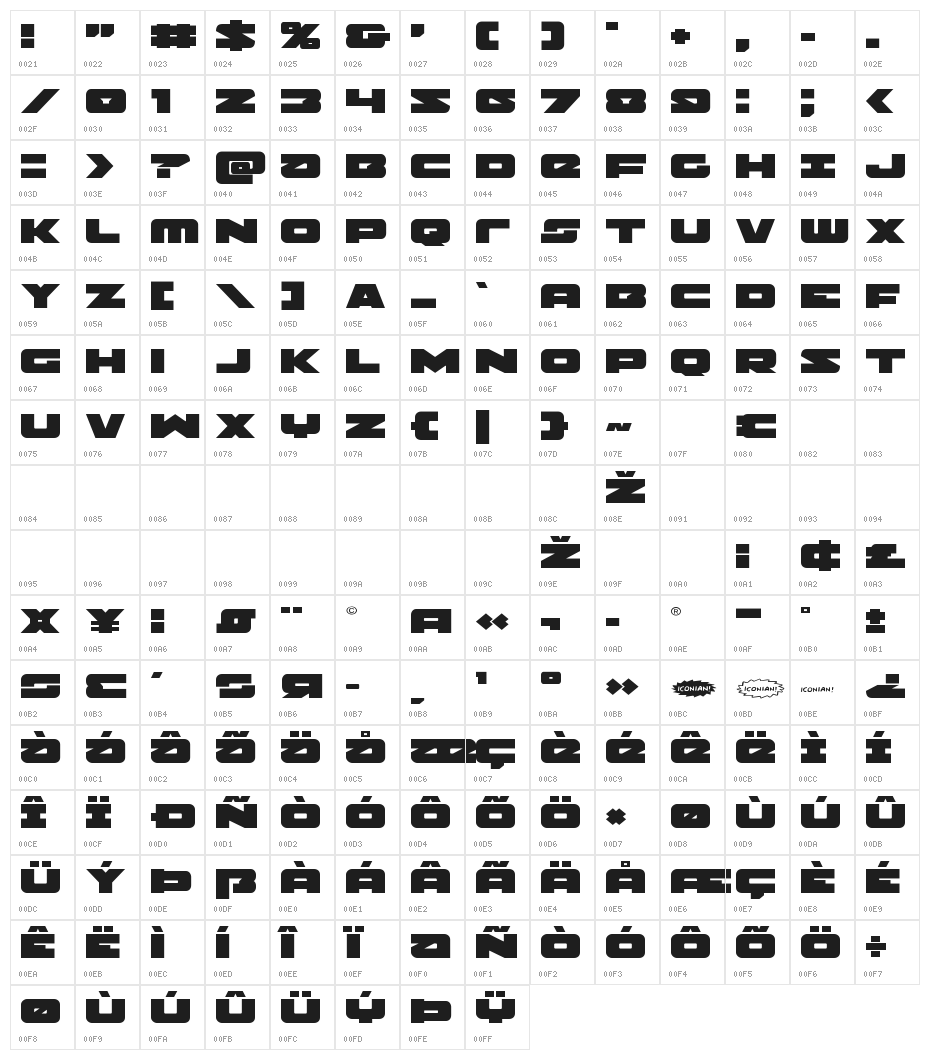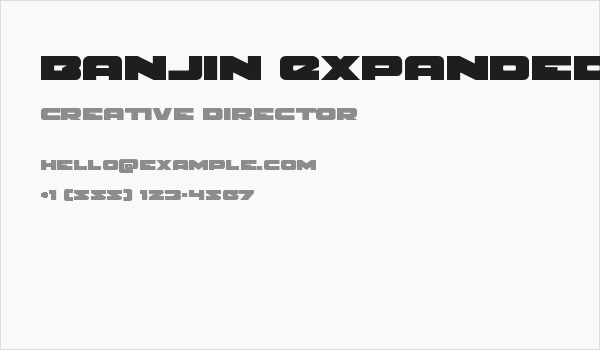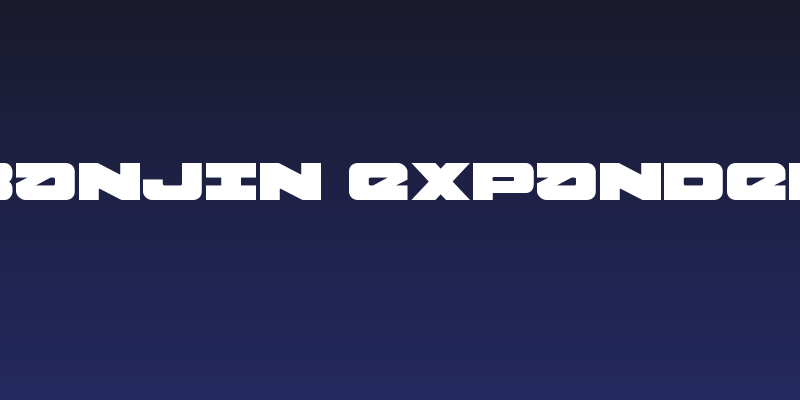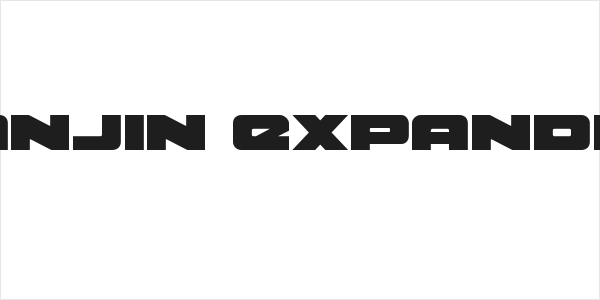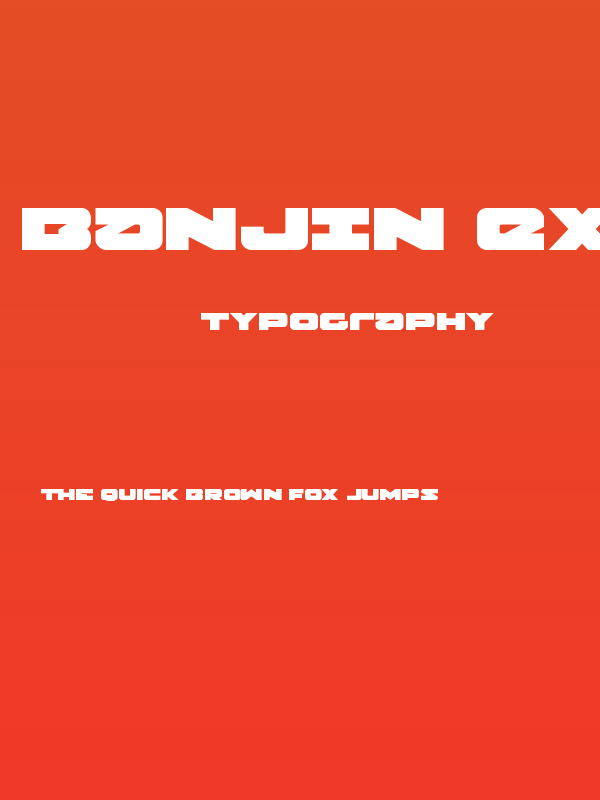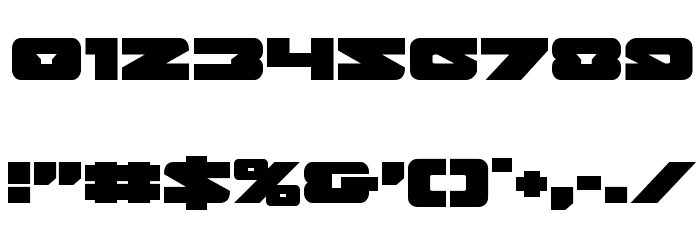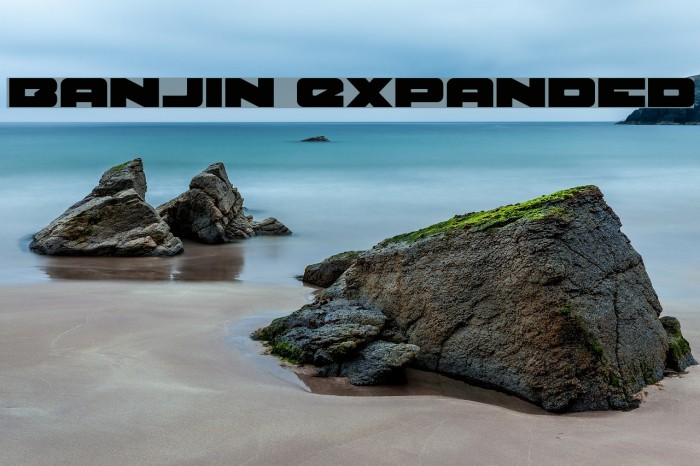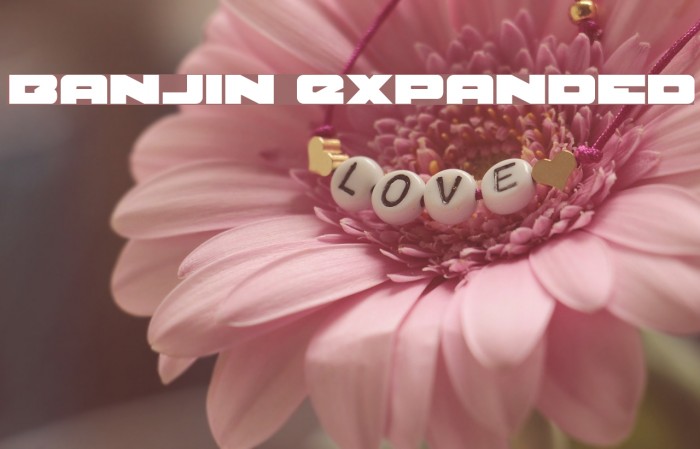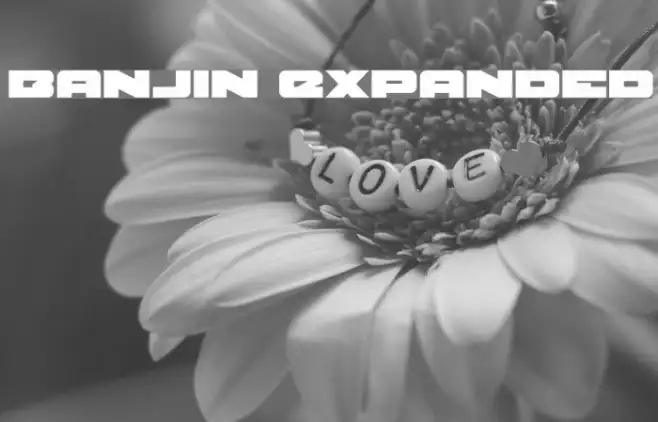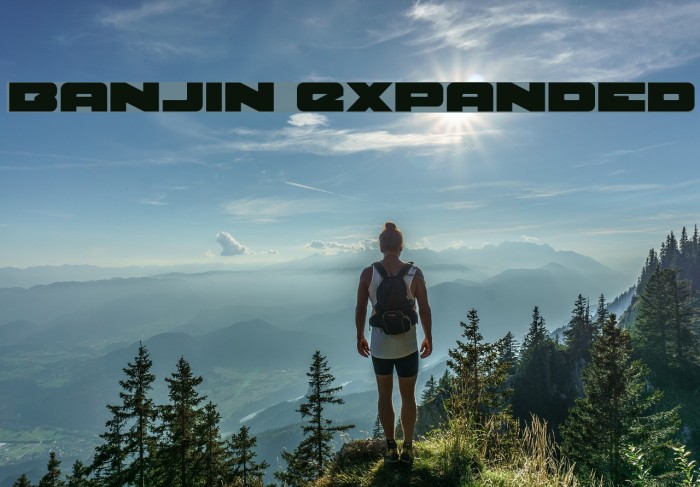
Banjin Expanded Font
Banjin Expanded Description
This font features a bold and geometric design with a distinctly futuristic and industrial feel. The characters are constructed with thick, block-like shapes that convey strength and stability. The angular cuts and sharp edges give it a dynamic and aggressive appearance, making it stand out in any design. The uniformity in stroke width across all characters provides a cohesive look, while the expanded width enhances its presence. The font's style is highly suitable for projects that require a modern and impactful visual statement.
| Proposed Projects | Ideal for branding, posters, video game graphics, and any project needing a strong, modern look. |